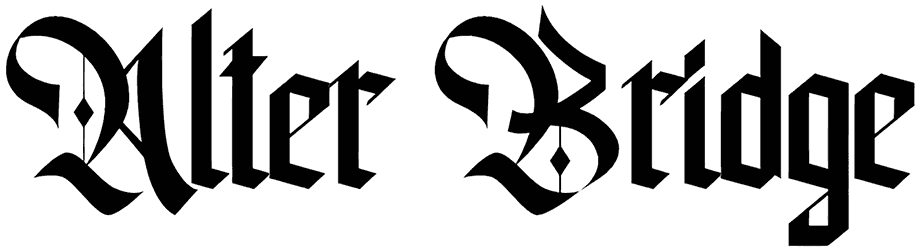
Alter Bridge Font
Alter Bridge font is more than just a writing style. This medieval font is a tangible link to our past and reminds us of when words were written intentionally.
In the age of digital communication and instant gratification, this blackletter font reminds us that sometimes the old ways are still best and can keep the audience busy for a while. So, if you want to spice up modern logos, book covers, restaurant menus, and clothes with the flavor of tradition, don’t skip it.